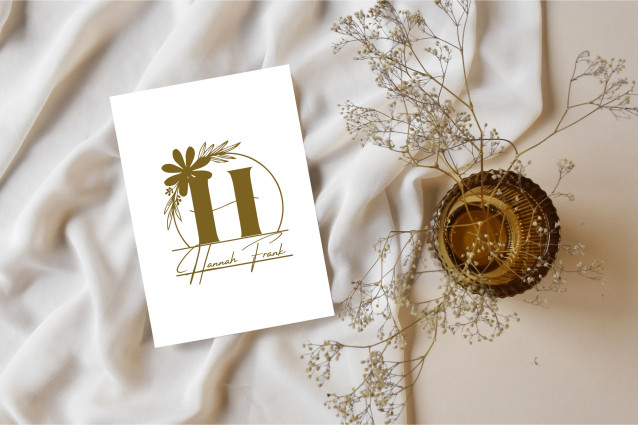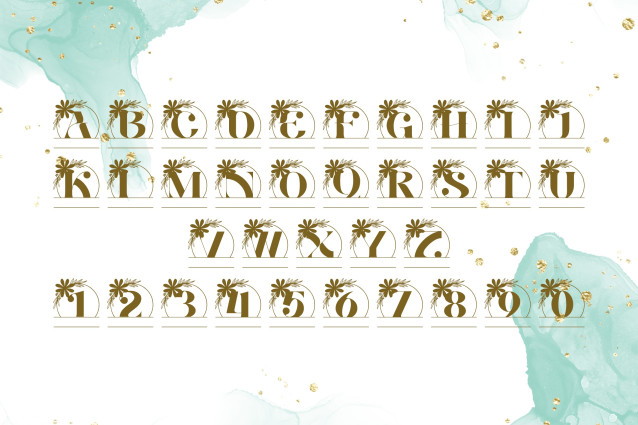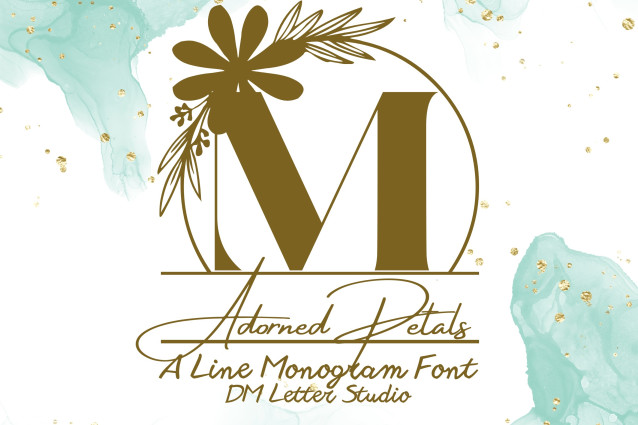
Adorned Petals Line Monogram Font
Adorned Petals Line Monogram Font is a sophisticated outline monogram font featuring delicate floral line art embellishments on uppercase serif letters. With its refined minimalist aesthetic, this font is ideal for wedding branding, custom nameplates, feminine logos, and high-end packaging. The graceful outlines and botanical accents bring a subtle touch of elegance to every design.